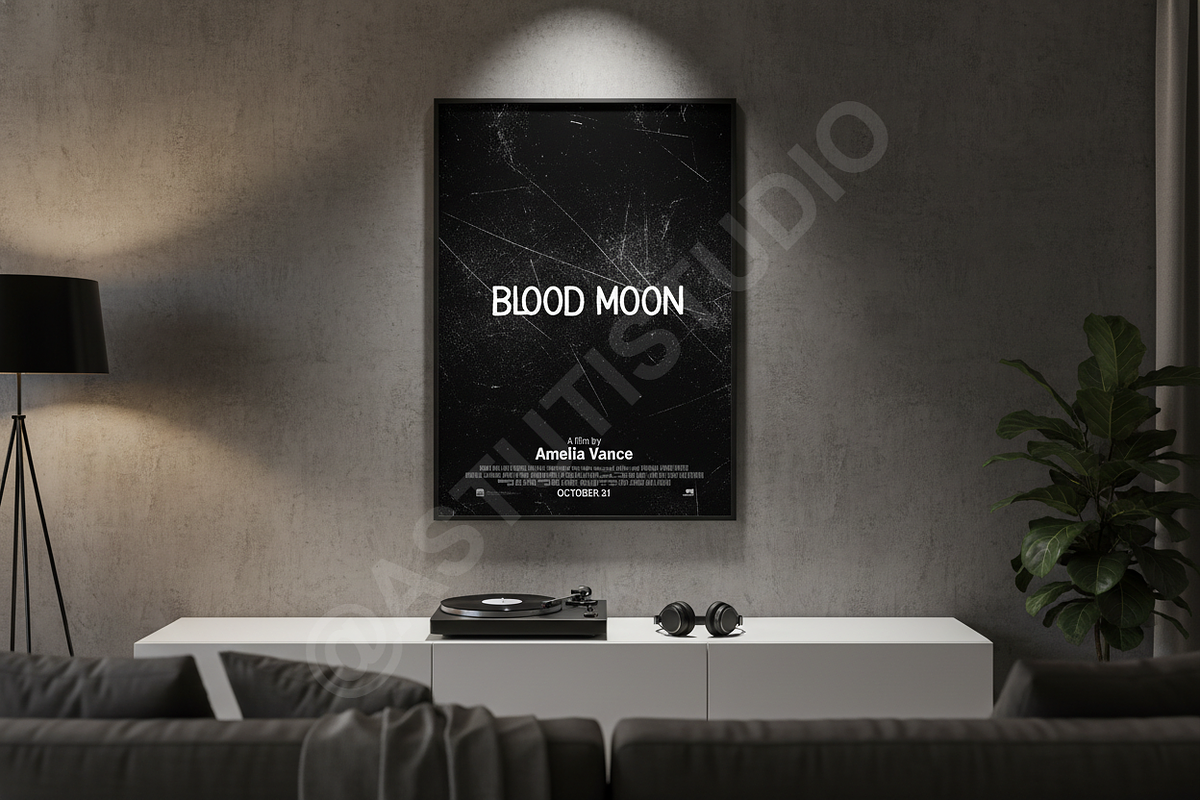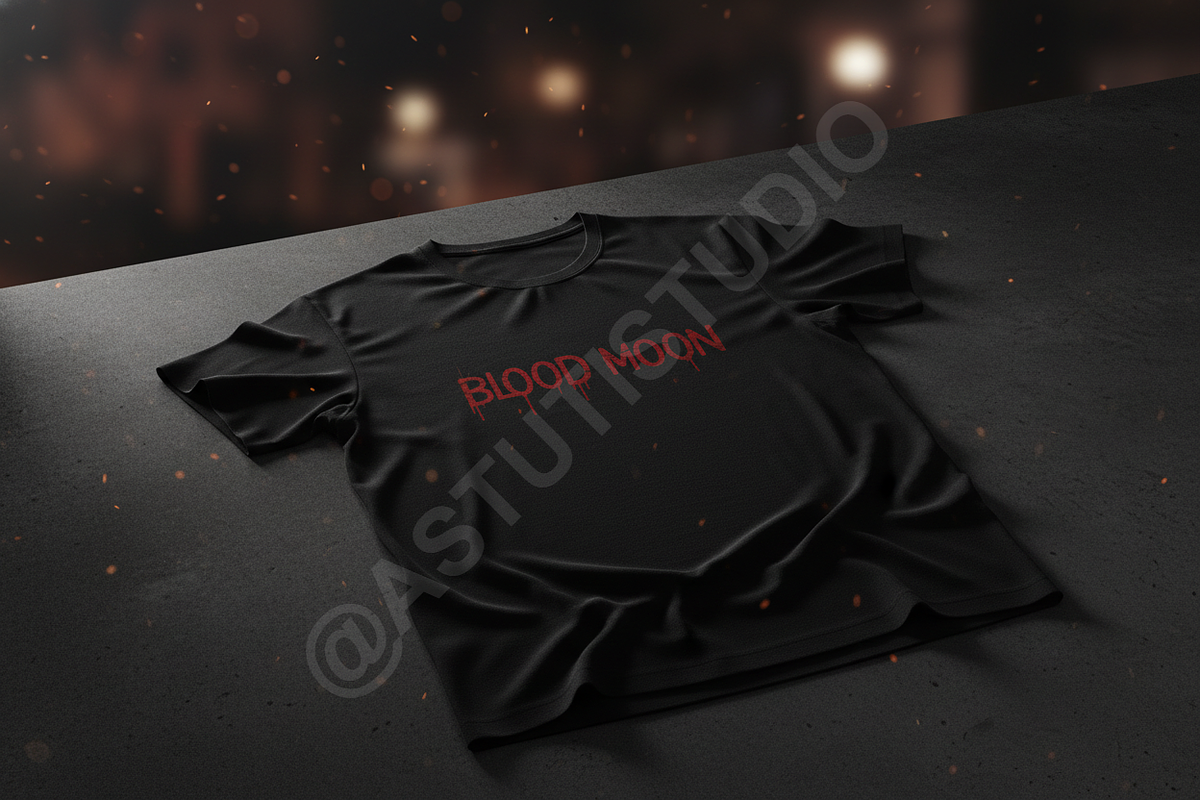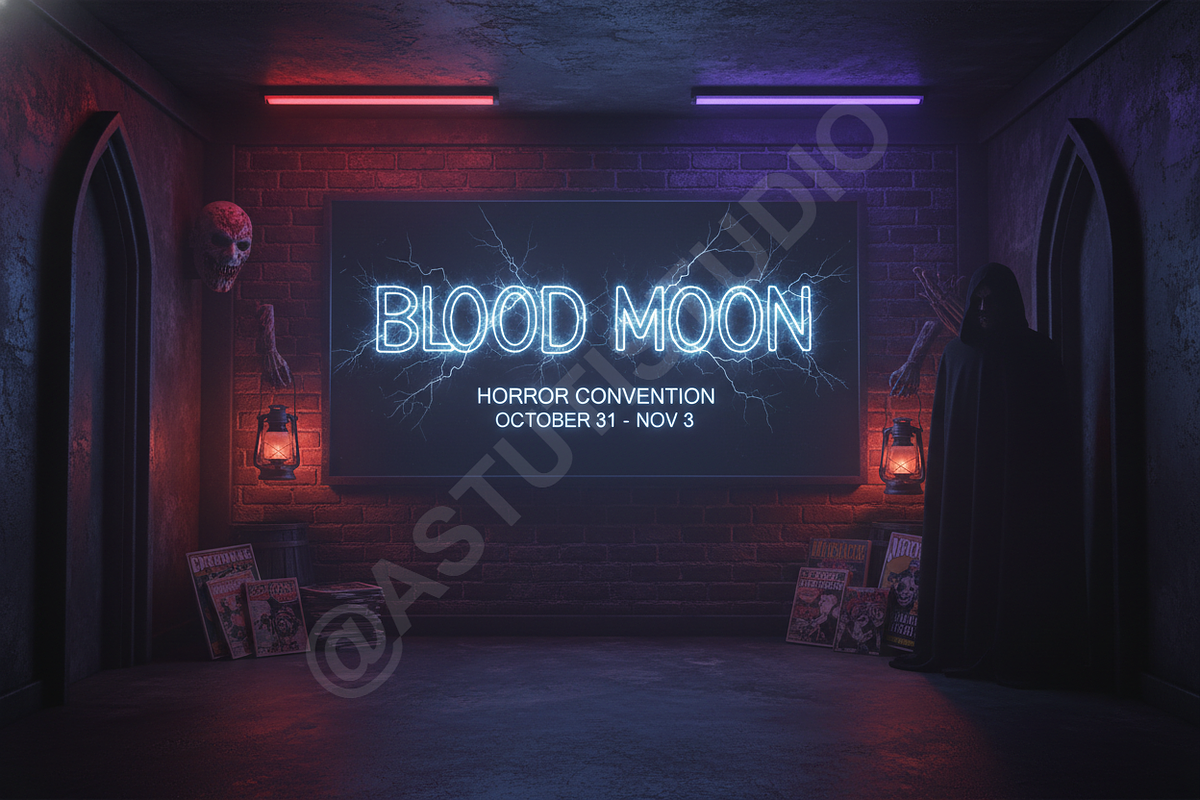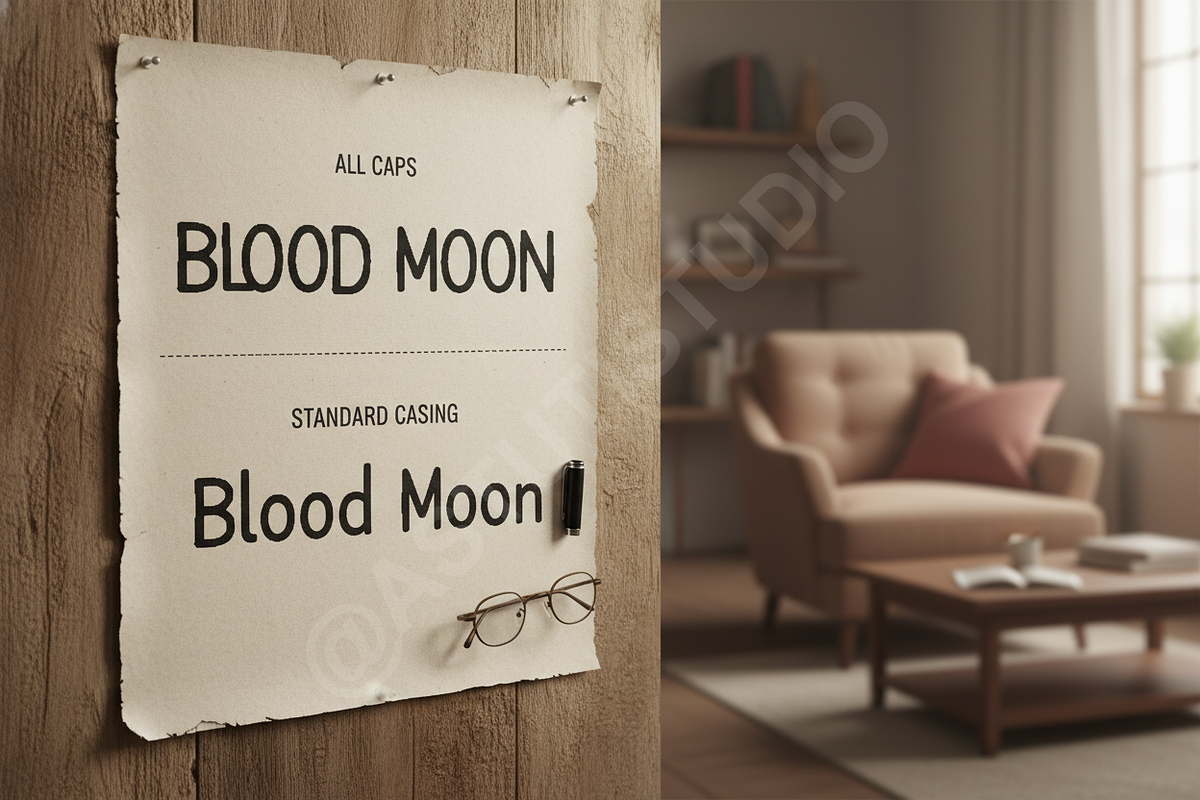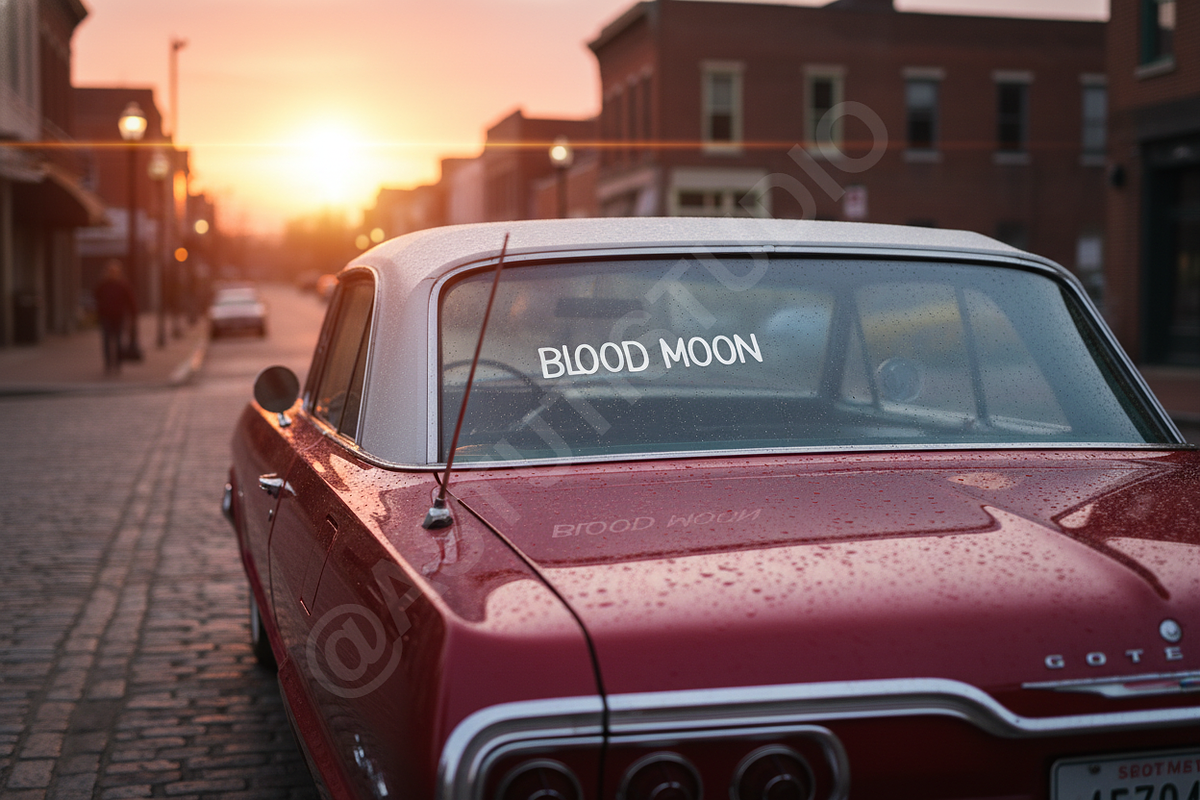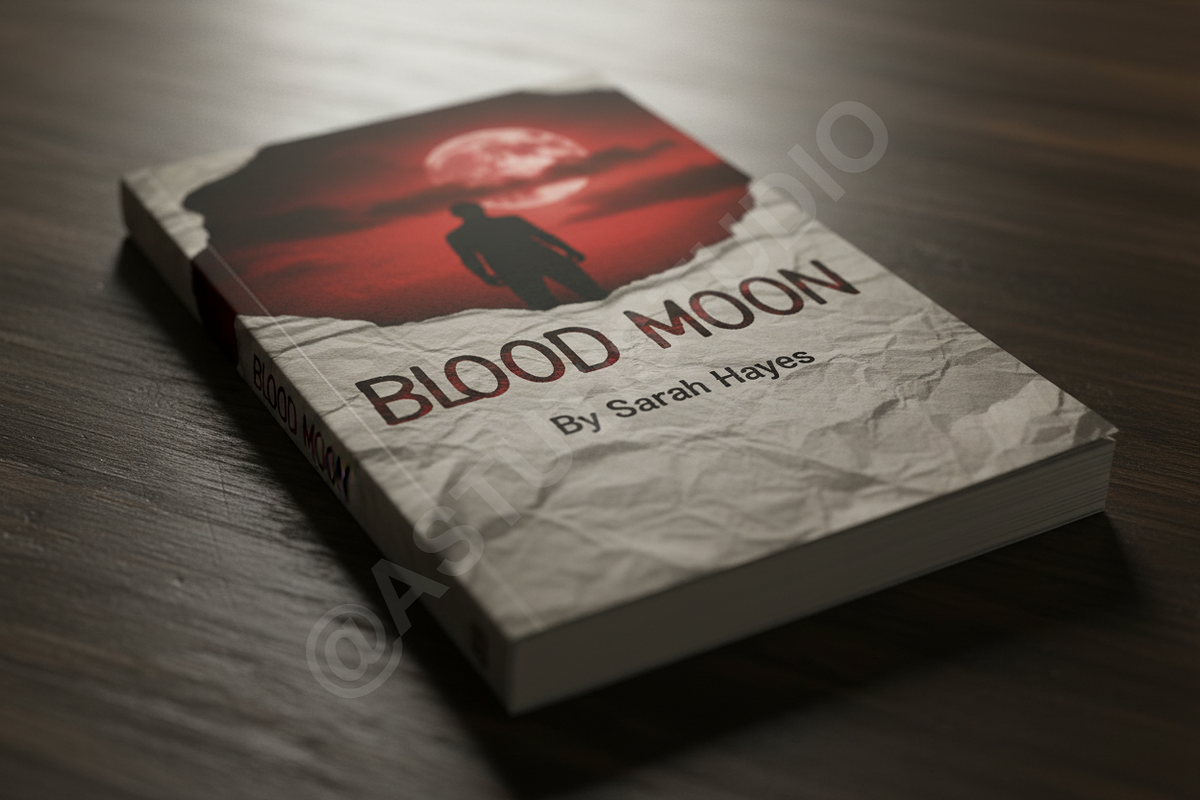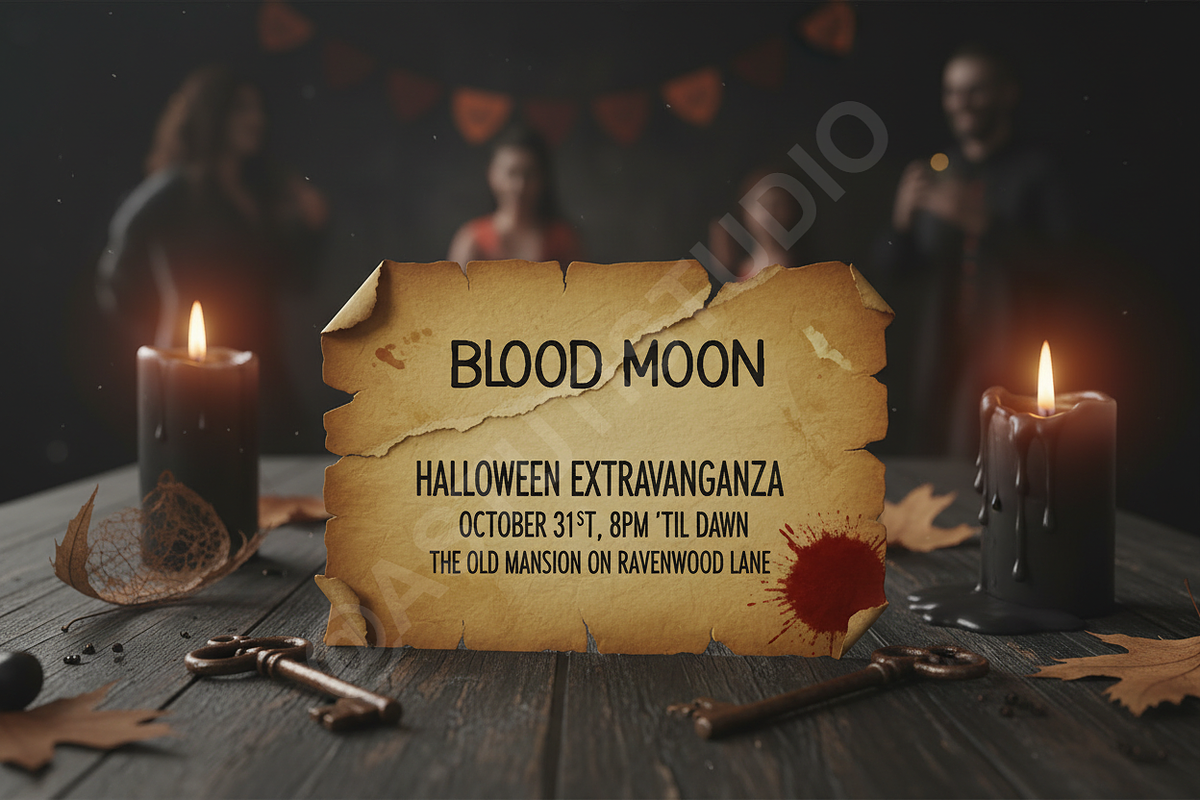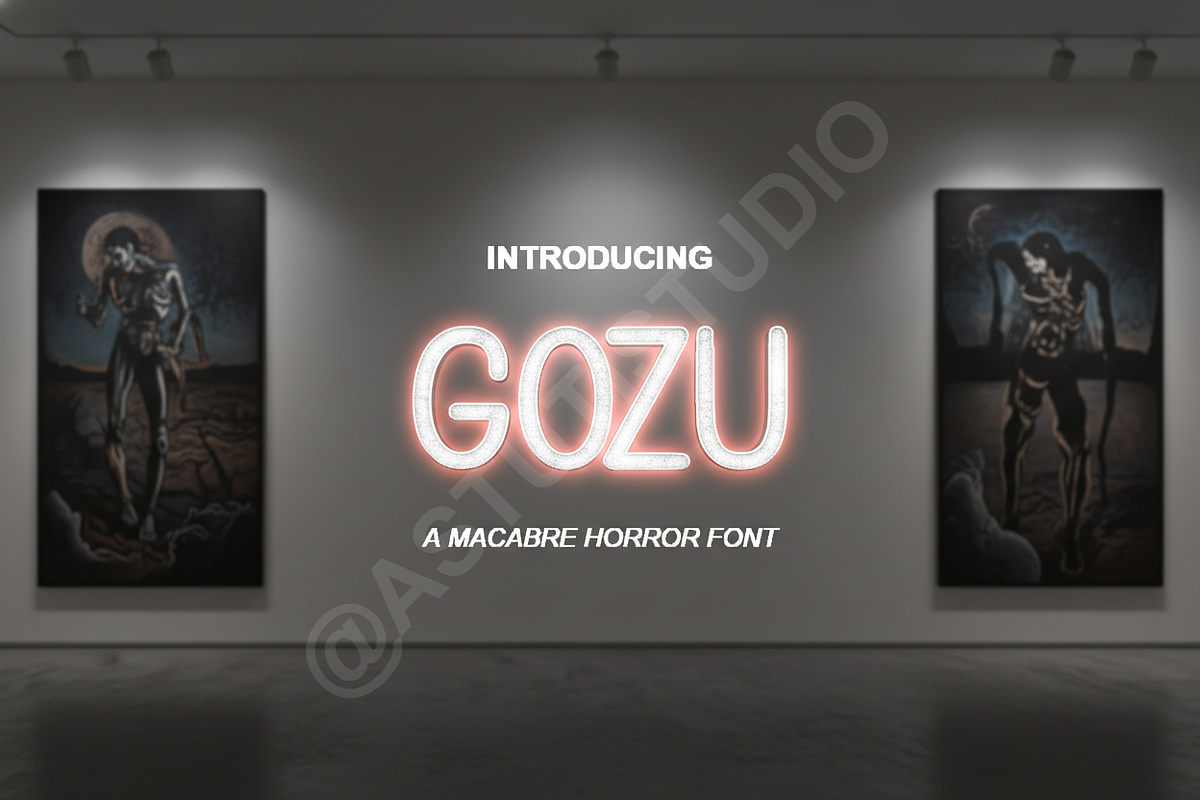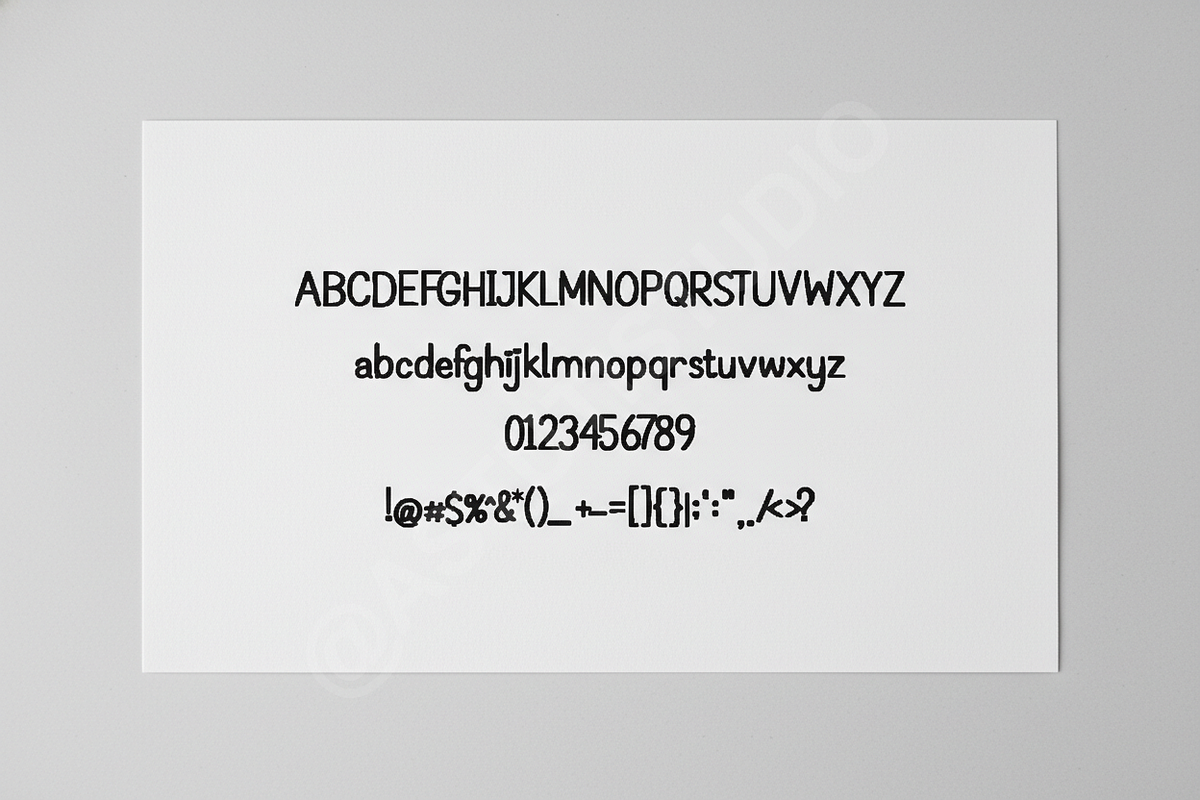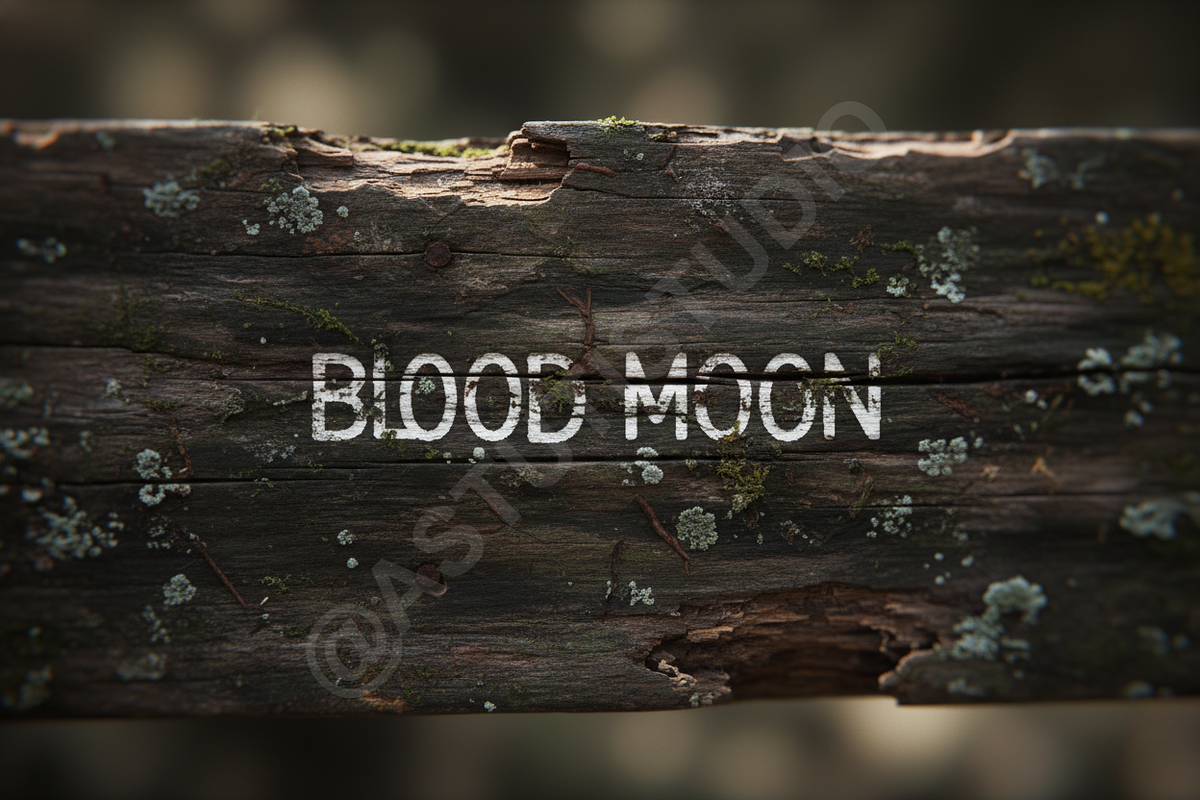
Gozu - Luxury Serif & Editorial Type
Gozu is a premium serif typeface designed for those who demand sophistication and clarity. Perfectly balanced for luxury branding, high-end editorial layouts, and impactful social media presence, Gozu brings a timeless aesthetic to modern design projects. Whether you are crafting a boutique logo or a high-fashion magazine layout, this font provides the precision and elegance your work deserves.
- Elegant high-contrast letterforms for a refined look
- Sophisticated ligatures and stylistic alternates
- Full multilingual character support for global reach
- Precision kerning for professional-grade typesetting
- Optimized for both digital displays and high-resolution print
- Access to a comprehensive glyph library